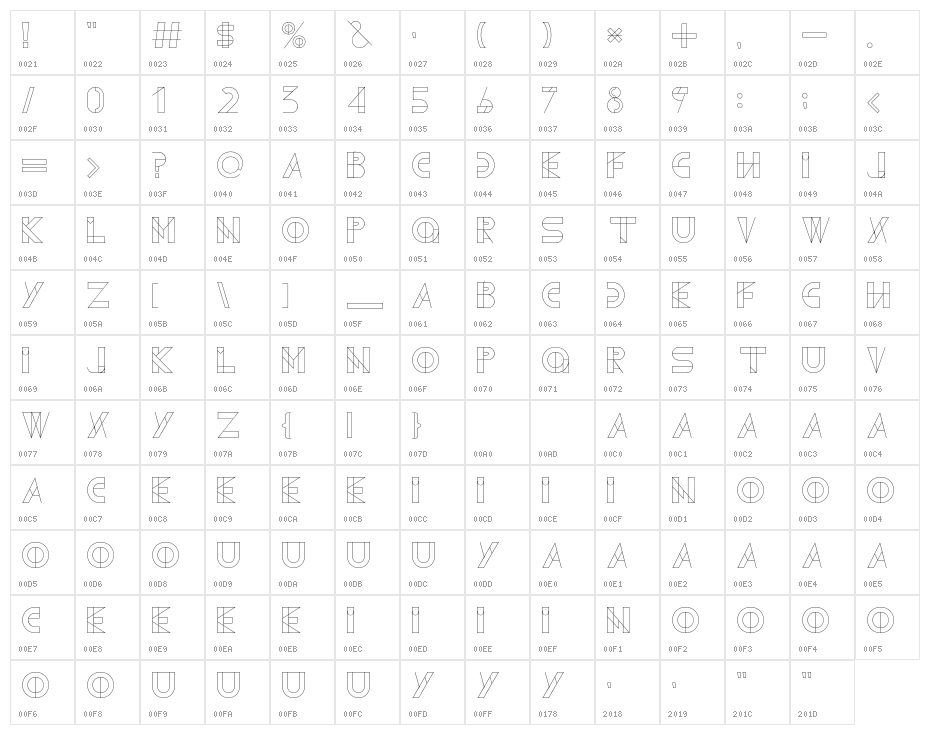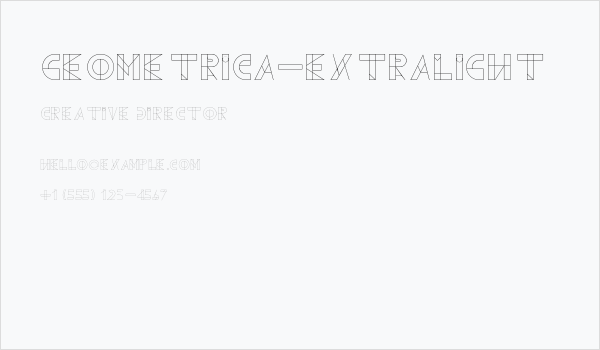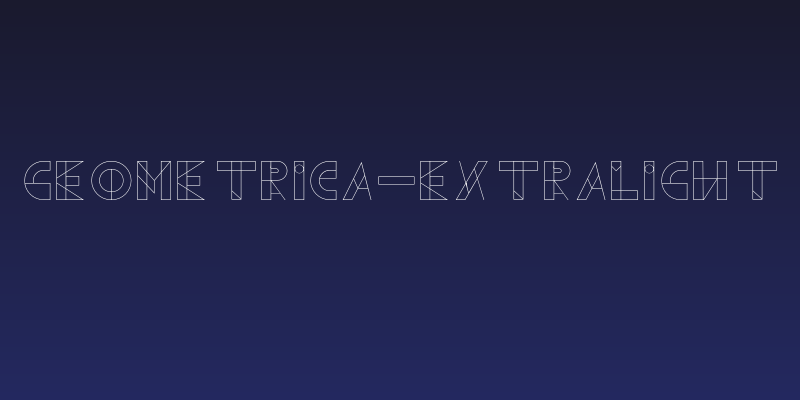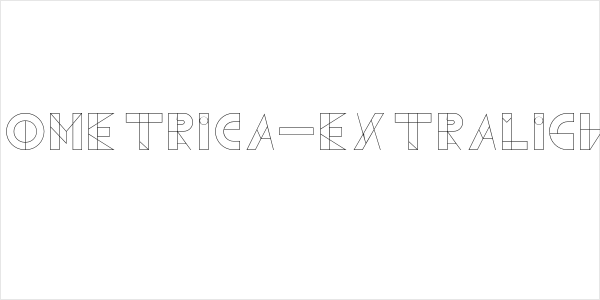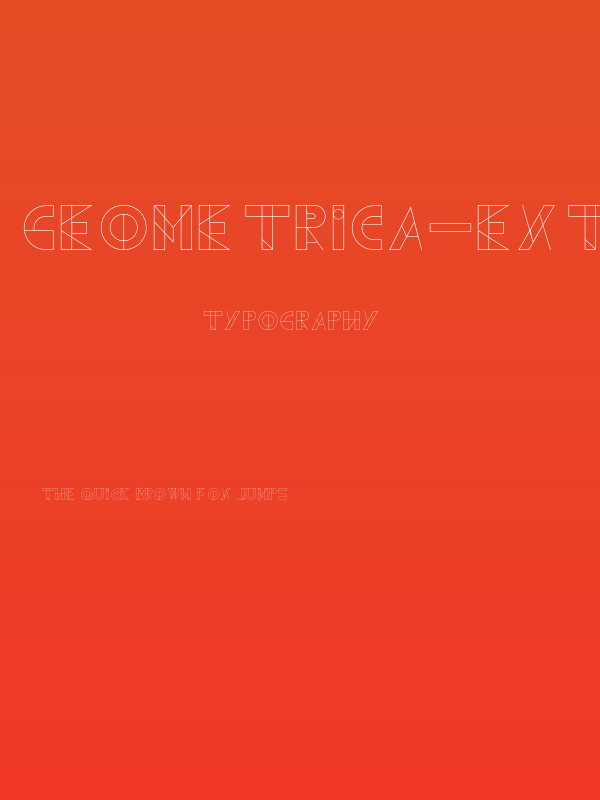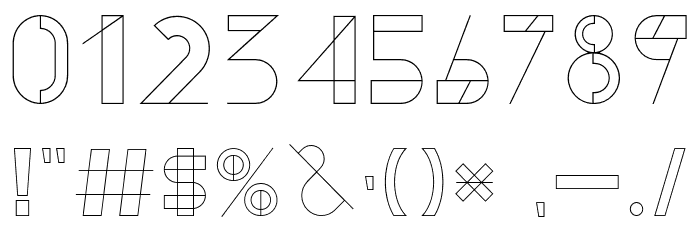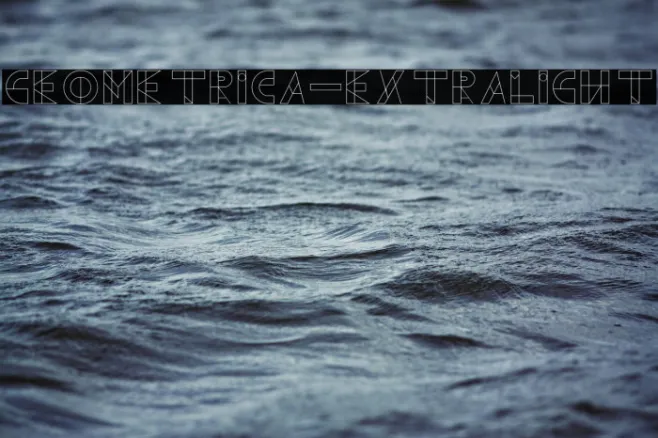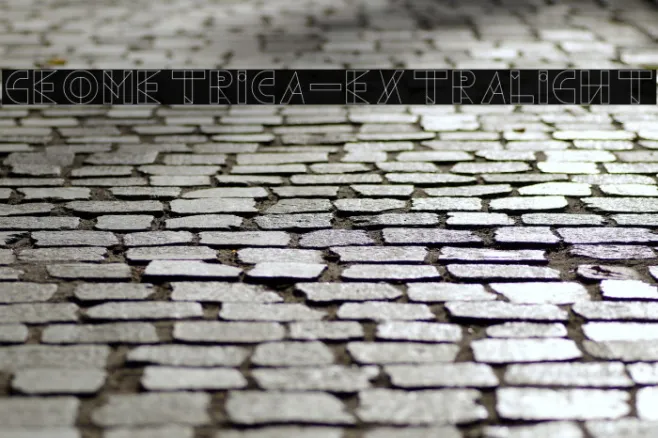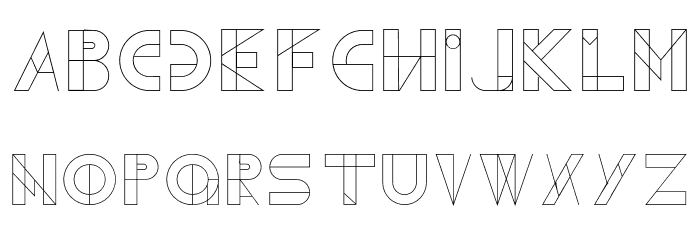
Geometrica-ExtraLight Font
Geometrica-ExtraLight Description
This font features a geometric, minimalist design with an extra-light weight. The characters are constructed using simple lines and shapes, creating a clean and modern appearance. The uppercase and lowercase letters maintain a consistent style, emphasizing symmetry and balance. The numerals and special characters follow the same geometric principles, ensuring uniformity across the typeface. The open and airy design makes it suitable for contemporary projects where clarity and simplicity are desired.
| Proposed Projects | Ideal for modern branding, tech-related designs, minimalist posters, and digital interfaces. |